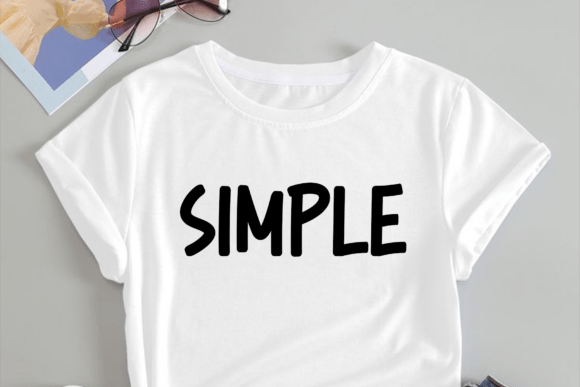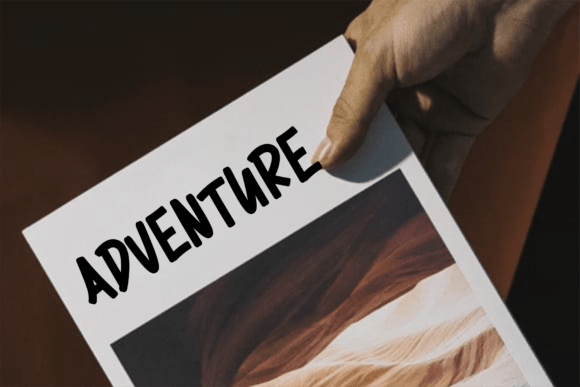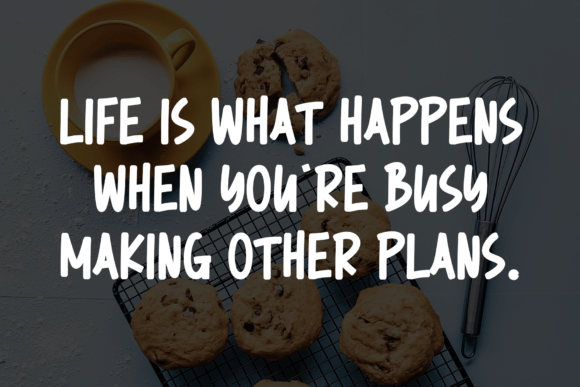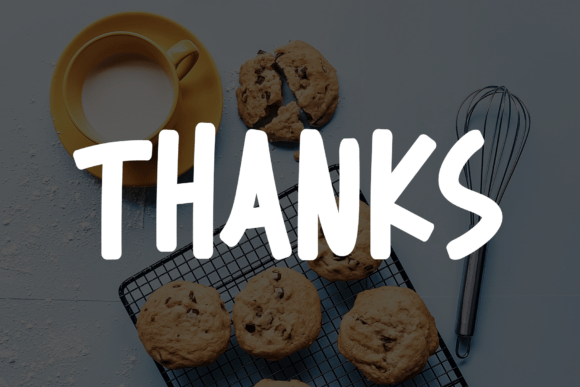
Cookies Font: The Sweetest Addition to Your Design Collection
Are you on the hunt for a font that’s as sweet as it is versatile? Look no further than Cookies Font, a playful and charming display font that’s sure to make your designs stand out. With its bold, rounded, and slightly irregular hand-drawn letters, Cookies Font is the perfect addition to any project that needs a strong, cheerful, and deliciously sweet handmade look.
The Inspiration Behind Cookies Font
Cookies Font is an irresistibly fun, chunky, and uniquely playful display font that’s inspired by the soft, puffy treats that we all know and love. Its bold, rounded letters are designed to resemble the sweet treats that bring joy to people of all ages, making it instantly appealing to anyone who lays eyes on it.
Perfect for Food and Bakery Branding
If you’re a food blogger, baker, or restaurateur looking for a font that will make your brand stand out, Cookies Font is an excellent choice. Its playful and cheerful vibe is perfect for food and bakery branding, and its bold letters are sure to grab attention. Whether you’re designing a logo, menu, or packaging, Cookies Font is sure to add a touch of sweetness to your brand.
A Great Choice for Children’s Books and Party Invitations
Cookies Font is also a great choice for designers who work with children’s books, party invitations, and other kid-friendly projects. Its playful and fun vibe is sure to appeal to kids and adults alike, and its bold letters are easy to read. Whether you’re designing a children’s book, party invitation, or activity sheet, Cookies Font is sure to add a touch of whimsy and fun to your project.
Casual Packaging and More
Cookies Font is a versatile font that’s perfect for a wide range of design projects, including casual packaging, labels, and even craft projects. Its bold, rounded letters are sure to add a touch of personality to any project, and its playful vibe is sure to make your designs stand out.
What Makes Cookies Font So Special?
So what makes Cookies Font so special? Here are just a few things that set it apart:
• Hand-drawn letters: Cookies Font features hand-drawn letters that are bold, rounded, and slightly irregular. This gives the font a unique, handmade look that’s sure to add personality to your designs.
• Playful vibe: Cookies Font has a playful and cheerful vibe that’s sure to appeal to kids and adults alike. Its bold letters are sure to grab attention and add a touch of fun to your designs.
• Versatility: Cookies Font is a versatile font that’s perfect for a wide range of design projects, from food and bakery branding to children’s books and casual packaging.
How to Use Cookies Font in Your Designs
Using Cookies Font in your designs is easy. Here are a few tips to get you started:
• Pair it with a simple font: Cookies Font is a bold and playful font, so it’s best paired with a simple font that will provide contrast. Try pairing it with a clean sans-serif font for a modern look.
• Use it for headlines: Cookies Font is perfect for headlines and titles, where its bold letters can really make an impact. Try using it for headings, subheadings, and other display text.
• Experiment with colors: Cookies Font looks great in a wide range of colors, from bright and bold to soft and pastel. Experiment with different colors to find the perfect look for your design.
Cookies Font is a sweet and playful display font that’s perfect for designers who want to add a touch of fun and personality to their designs. With its bold, rounded letters and playful vibe, it’s sure to appeal to kids and adults alike. Whether you’re designing a logo, menu, or packaging, Cookies Font is sure to make your designs stand out. So why wait? Download Cookies Font today and start adding a touch of sweetness to your designs!